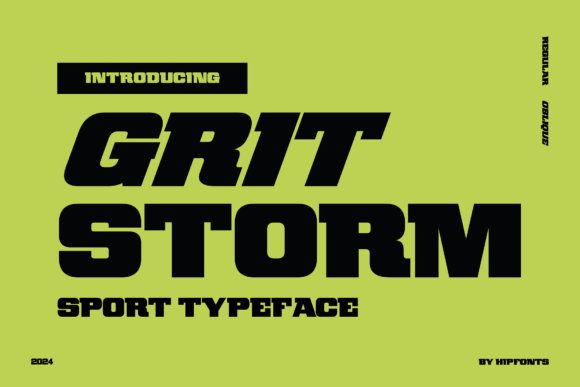
Introducing Gritstorm: The Powerhouse Typeface for Bold Designs
In the world of graphic design, the right font can make all the difference. It can elevate a project from ordinary to extraordinary, convey emotions, and even influence how a message is perceived. For designers seeking a font that exudes boldness, energy, and attitude, Gritstorm is the ultimate choice. This powerhouse typeface is specifically designed to bring a sense of intensity and grit to any design, making it perfect for projects that demand attention and convey a strong, competitive spirit.
What is Gritstorm Font?
Gritstorm is a heavyweight typeface tailored for graphic designers who need a strong, impactful font. Its thick, bold letters are designed to demand attention, making it an ideal choice for projects that require a sense of power and intensity. Whether you’re working on sports branding, team jerseys, event posters, or adrenaline-fueled social media graphics, Gritstorm is the perfect font to infuse your designs with a sense of competition and raw determination.
Design Applications for Gritstorm
Gritstorm’s versatility makes it suitable for a wide range of design applications. Some of the most popular uses for this font include:
- Sports Branding: Create bold, eye-catching logos and jerseys that showcase team spirit and intensity.
- Event Posters: Design attention-grabbing posters for concerts, festivals, and sporting events that convey energy and excitement.
- Social Media Graphics: Elevate your social media presence with bold, adrenaline-fueled graphics that demand attention.
- Merchandise: Design striking merchandise, such as t-shirts, hats, and water bottles, that showcase your brand’s personality.
- Digital and Print Ads: Create impactful ads that convey a sense of urgency and competition, driving engagement and conversions.
The Benefits of Using Gritstorm
So, why choose Gritstorm for your design projects? Here are just a few benefits of using this powerhouse typeface:
- Attention-Grabbing: Gritstorm’s bold, heavyweight letters demand attention, ensuring your message is seen and heard.
- Versatile: Suitable for a wide range of design applications, from sports branding to social media graphics.
- High-Impact: Infuse your designs with a sense of intensity and grit, conveying a strong, competitive spirit.
- Easy to Read: Despite its bold nature, Gritstorm remains easy to read, even at smaller sizes.
Design Tips for Using Gritstorm
To get the most out of Gritstorm, here are some design tips to keep in mind:
- Pair with Contrasting Fonts: Combine Gritstorm with lighter, more elegant fonts to create visual interest and contrast.
- Experiment with Colors: Try pairing Gritstorm with bold, bright colors to amplify its impact and energy.
- Use for Headlines: Gritstorm is perfect for headlines and titles, where its bold presence can make a lasting impression.
- Don’t Overuse: Use Gritstorm sparingly to avoid overwhelming your design and to maintain its impact.
In conclusion, Gritstorm is a powerhouse typeface that brings boldness, energy, and attitude to any design. With its thick, heavyweight letters and versatile design, it’s perfect for a wide range of applications, from sports branding to social media graphics. By incorporating Gritstorm into your design projects, you’ll be able to create visually striking designs that demand attention and convey a strong, competitive spirit. So why settle for ordinary fonts when you can make a statement with Gritstorm?